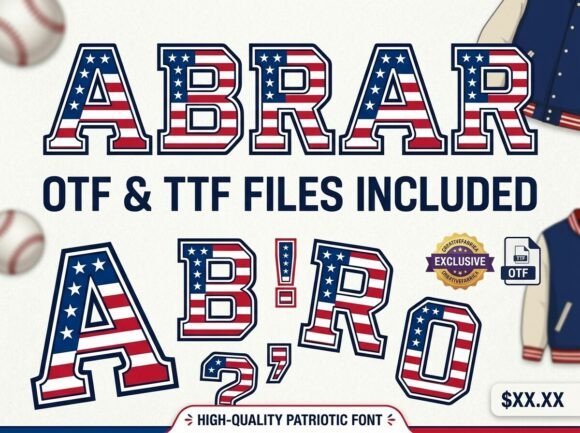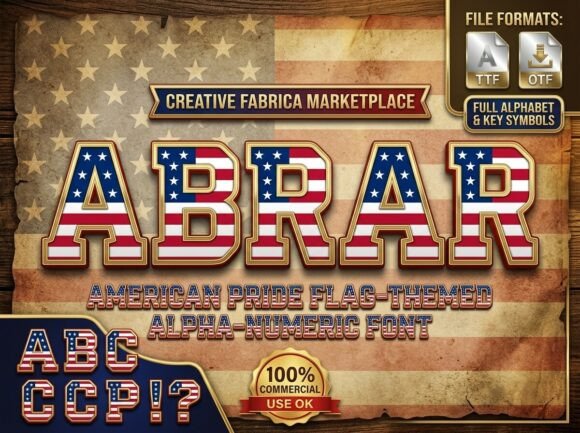
Abrar Font: Showcasing Patriotism with a Classic Varsity Style
Are you looking for a font that embodies the spirit of American patriotism and athletic pride? Look no further than Abrar, a premium digital typeface that combines a classic athletic block structure with a detailed American flag pattern integrated into every letter. In this article, we’ll dive into the features and benefits of the Abrar font, and explore how it can be used to create stunning designs for patriotic apparel, events, and graphics.
What is Abrar Font?
Abrar is a heavy-duty varsity font that wears the Stars and Stripes with pride. This bold and eye-catching typeface is designed to make a statement, perfect for designers and crafters looking to create high-impact graphics that showcase national spirit and athletic power. With its classic athletic block structure and intricate American flag pattern, Abrar is the ultimate tool for creating patriotic apparel, Fourth of July event branding, veteran-themed graphics, and sports posters.
Key Features of Abrar Font
- Classic Athletic Block Structure: Abrar’s block-style lettering is reminiscent of traditional athletic typography, evoking a sense of nostalgia and sportsmanship.
- American Flag Pattern: Every letter in the Abrar font features a detailed American flag pattern, adding a touch of patriotism and national pride to any design.
- Heavy-Duty: Abrar is a bold and robust font, perfect for creating high-impact graphics that grab attention.
- Premium Digital Typeface: As a premium digital typeface, Abrar is designed to deliver exceptional results in a variety of applications, from apparel to advertising.
Uses for Abrar Font
Abrar is an incredibly versatile font, suitable for a wide range of design applications. Here are just a few ideas to get you started:
- Patriotic Apparel: Create stunning t-shirts, hats, and other apparel that showcases American pride with Abrar.
- Fourth of July Event Branding: Use Abrar to create eye-catching event branding, including posters, flyers, and social media graphics.
- Veteran-Themed Graphics: Honor America’s heroes with Abrar, perfect for creating veteran-themed graphics, including t-shirts, mugs, and more.
- Sports Posters: Add a touch of patriotism to sports posters, flyers, and social media graphics with Abrar’s bold and eye-catching style.
Tips for Using Abrar Font
To get the most out of Abrar, here are a few tips to keep in mind:
- Use Contrasting Colors: Abrar’s bold style works best when paired with contrasting colors that make the font stand out.
- Experiment with Effects: Don’t be afraid to experiment with effects, such as gradients, shadows, and textures, to add depth and interest to your designs.
- Pair with Other Fonts: Abrar works well when paired with other fonts, including script fonts and sans-serif fonts, to create visually interesting combinations.
In conclusion, Abrar is a premium digital typeface that embodies the spirit of American patriotism and athletic pride. With its classic athletic block structure and intricate American flag pattern, Abrar is the ultimate tool for designers and crafters looking to create stunning graphics that make a statement. Whether you’re creating patriotic apparel, Fourth of July event branding, or sports posters, Abrar is the perfect choice.